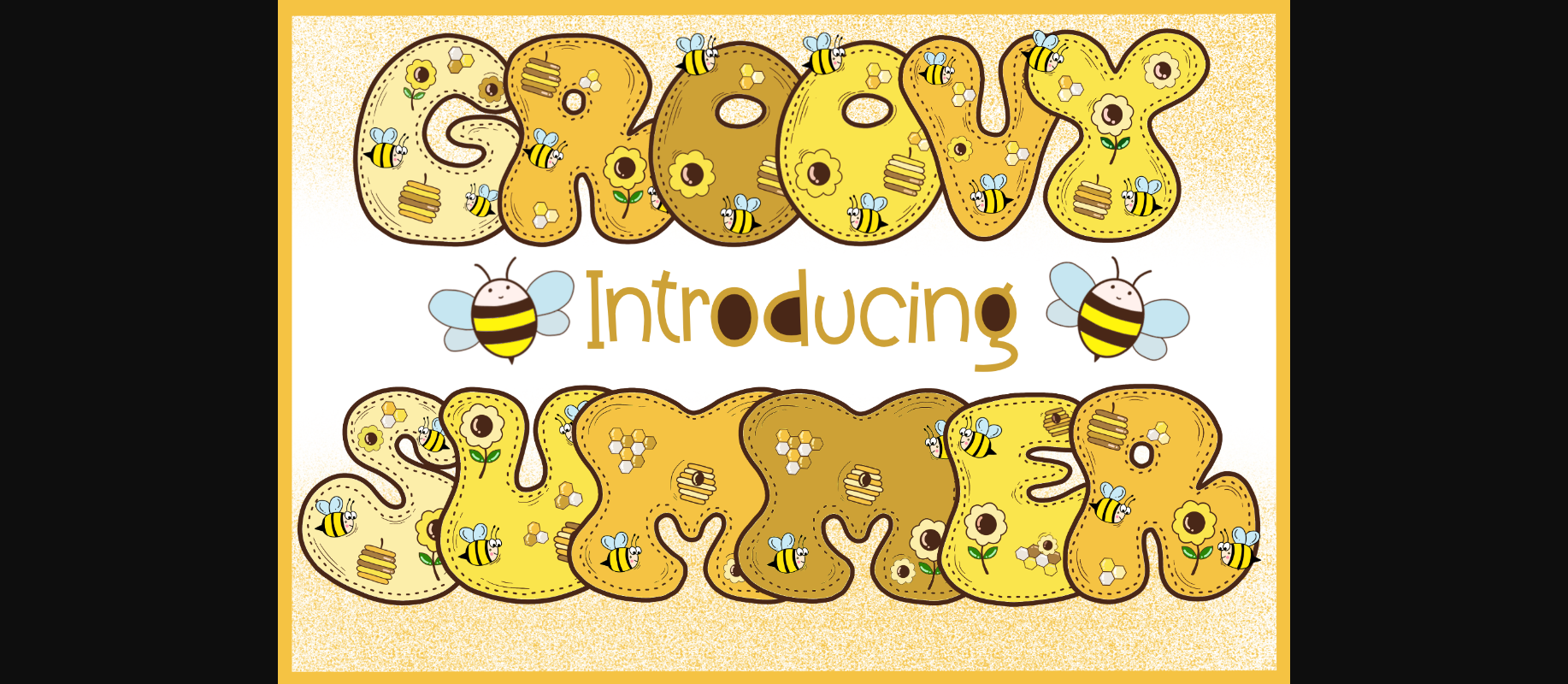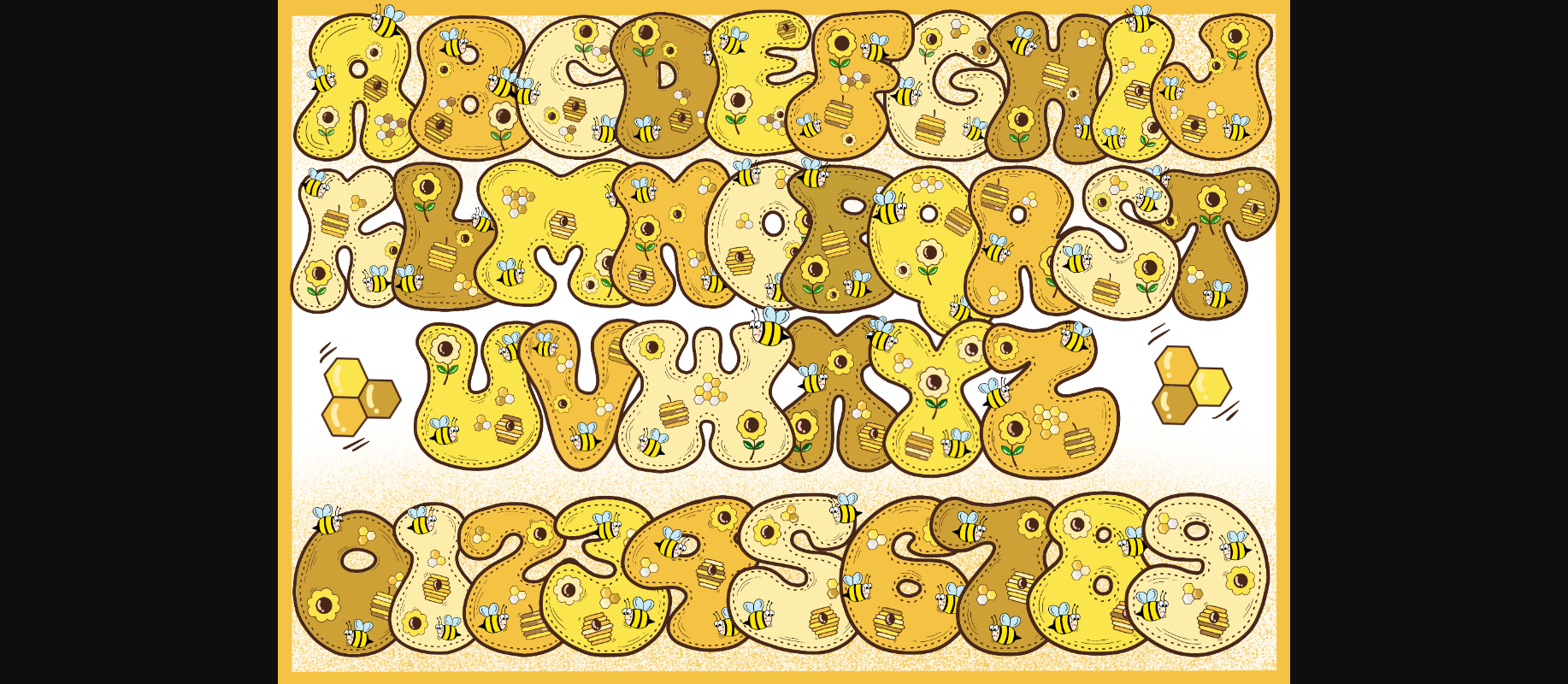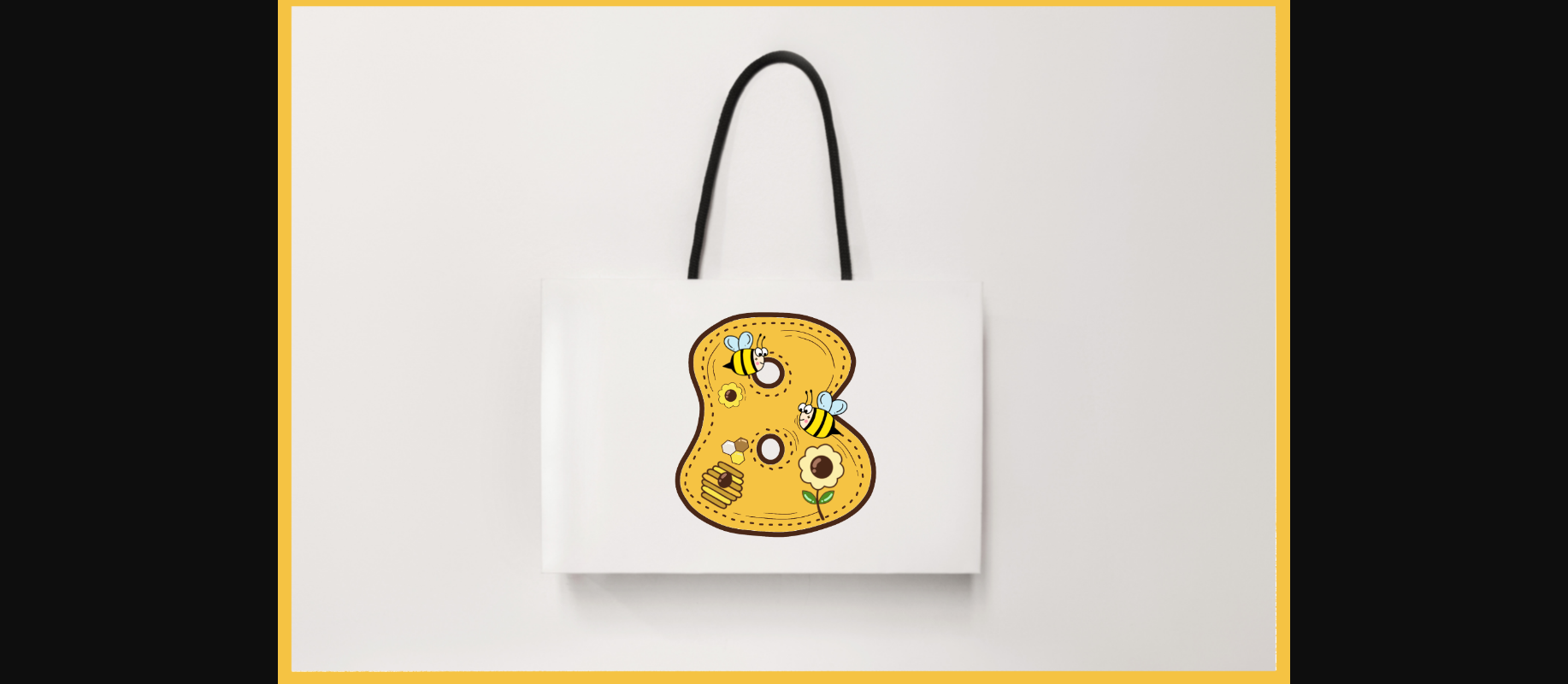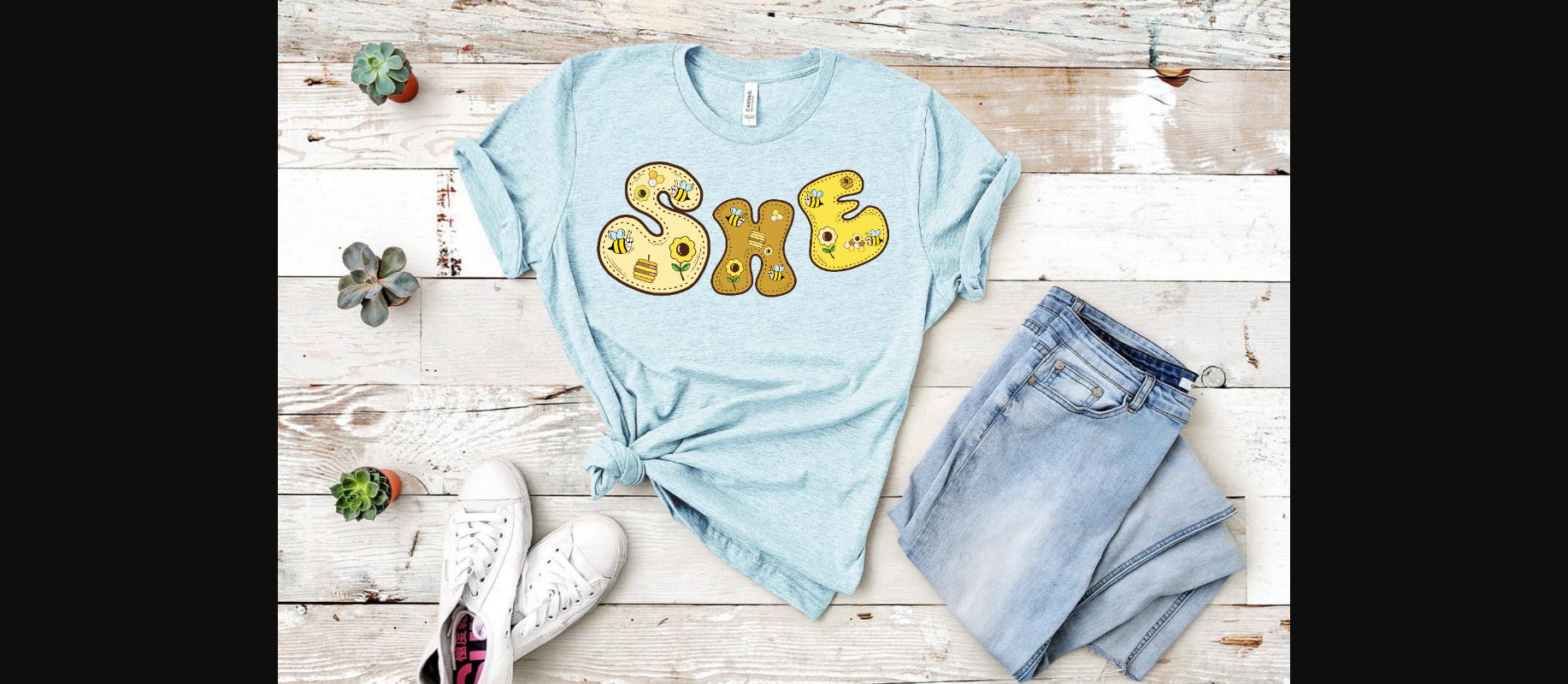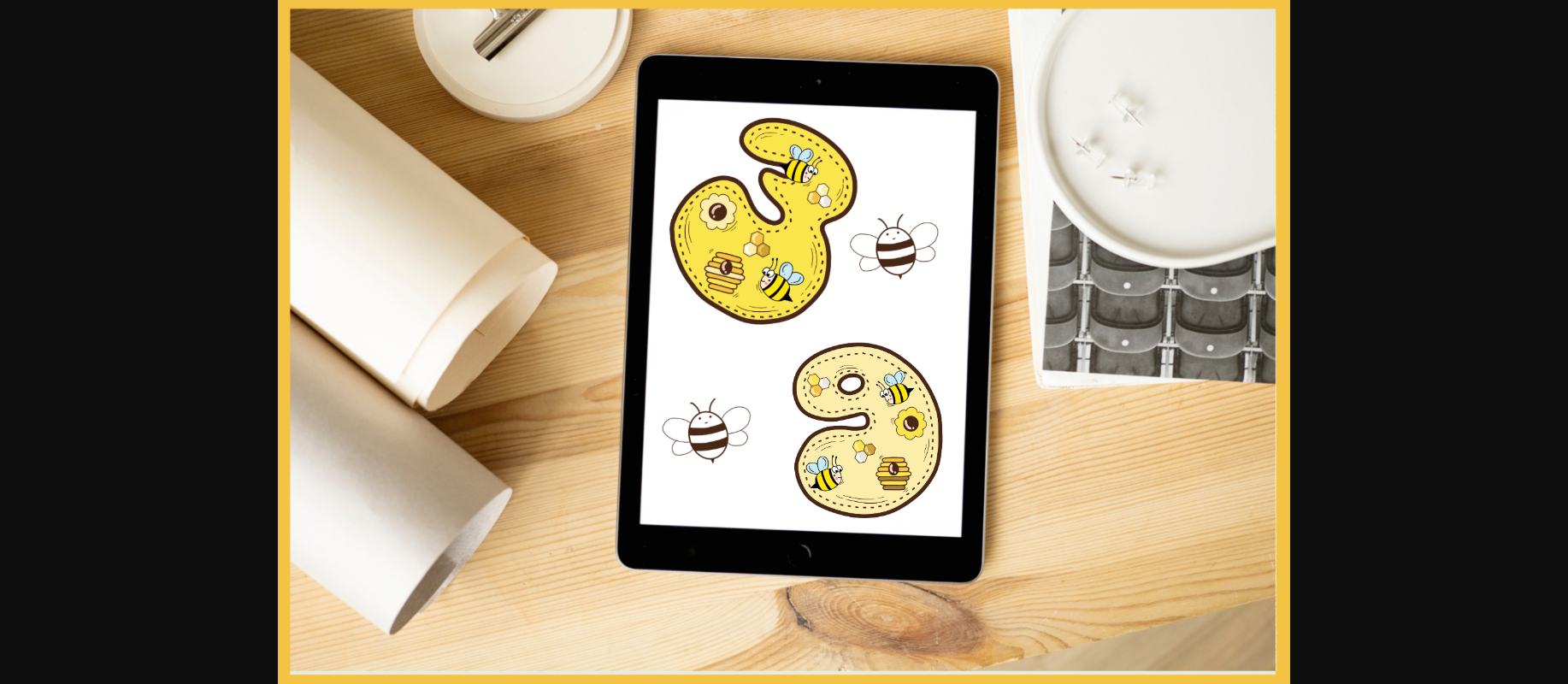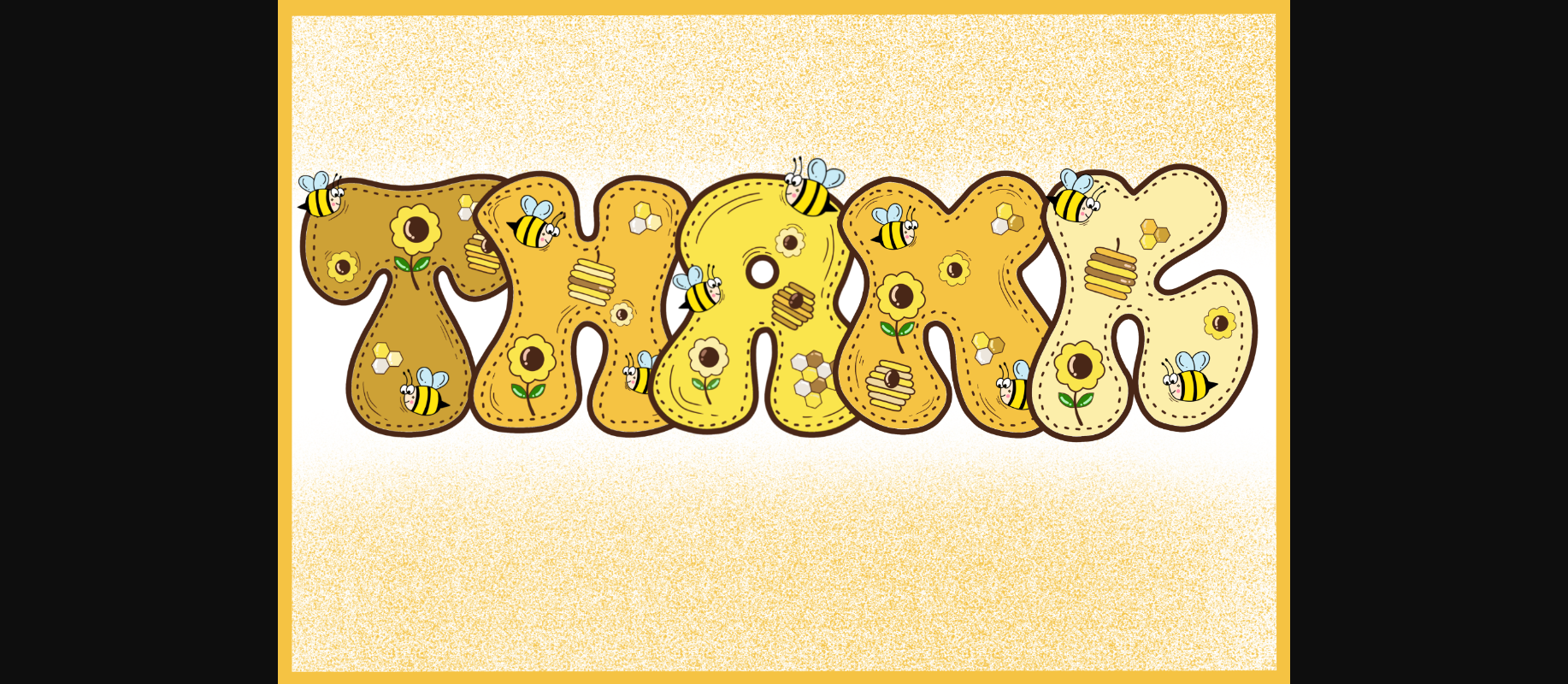
Summer is a cute decorative font suitable for teaching materials, presentations, educational projects, advertising, illustrations, and so much more! Add it now to your designs and enjoy its playful effect!